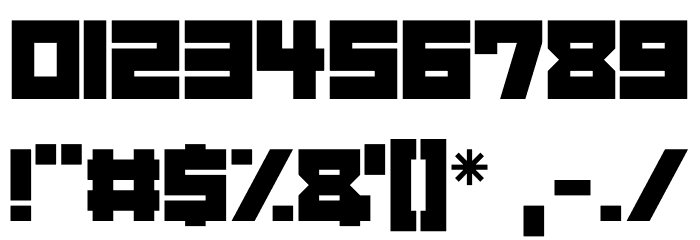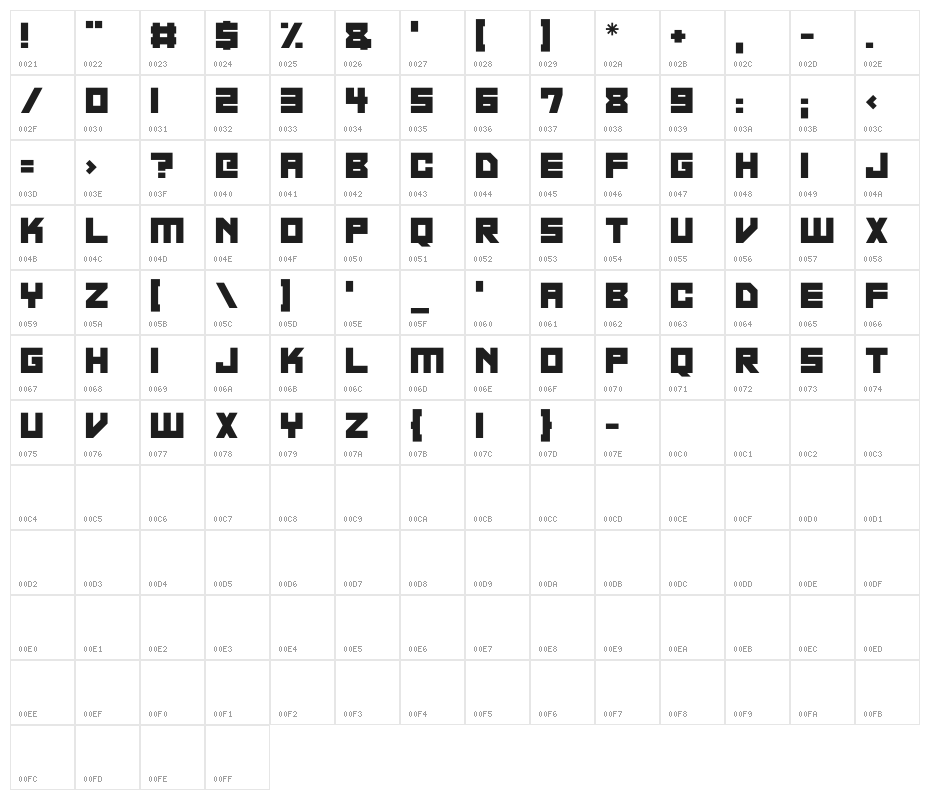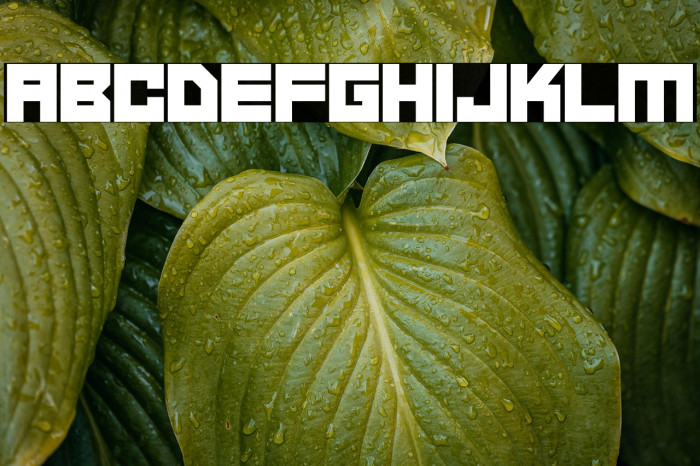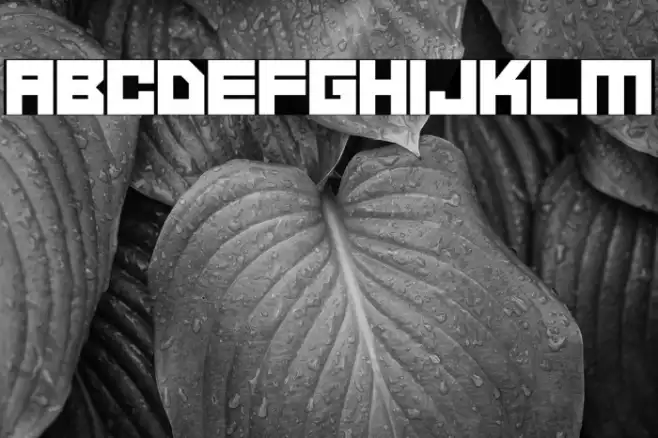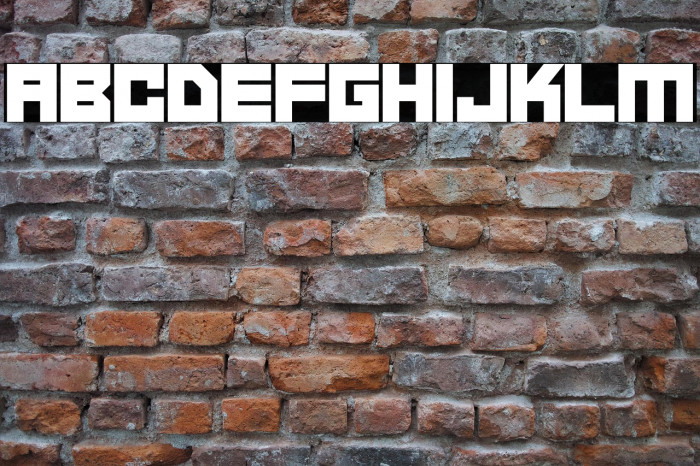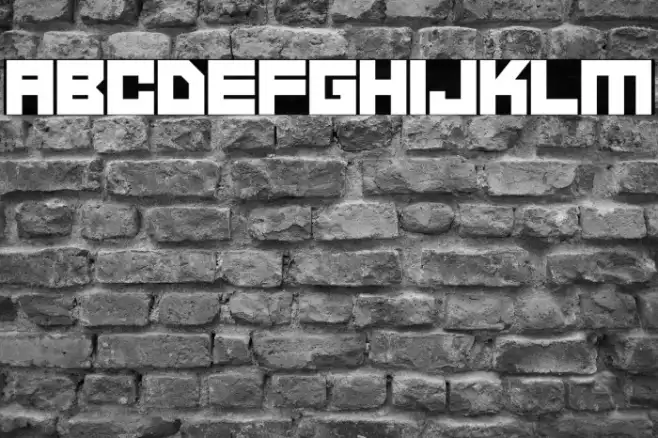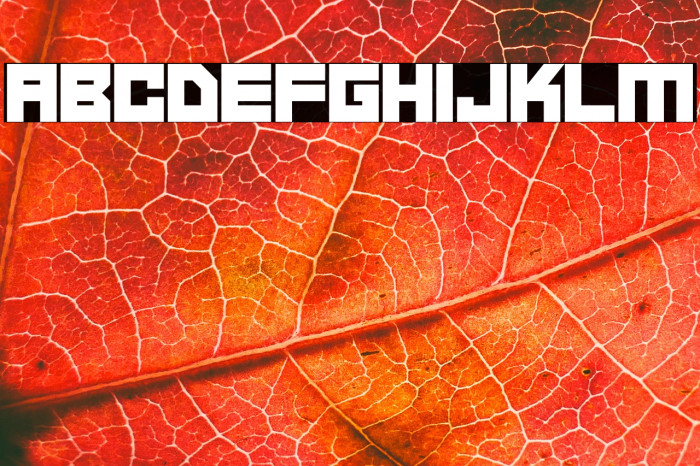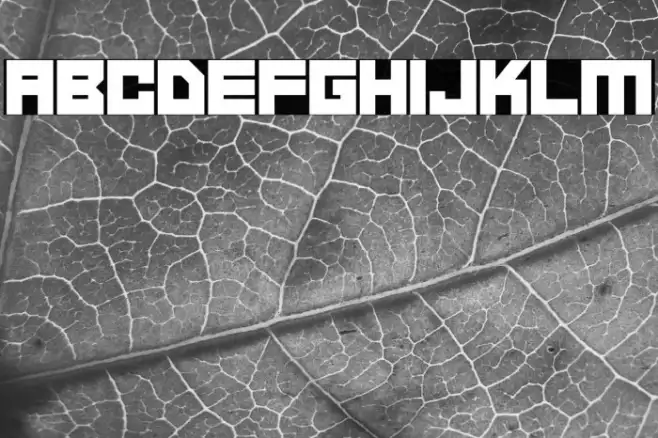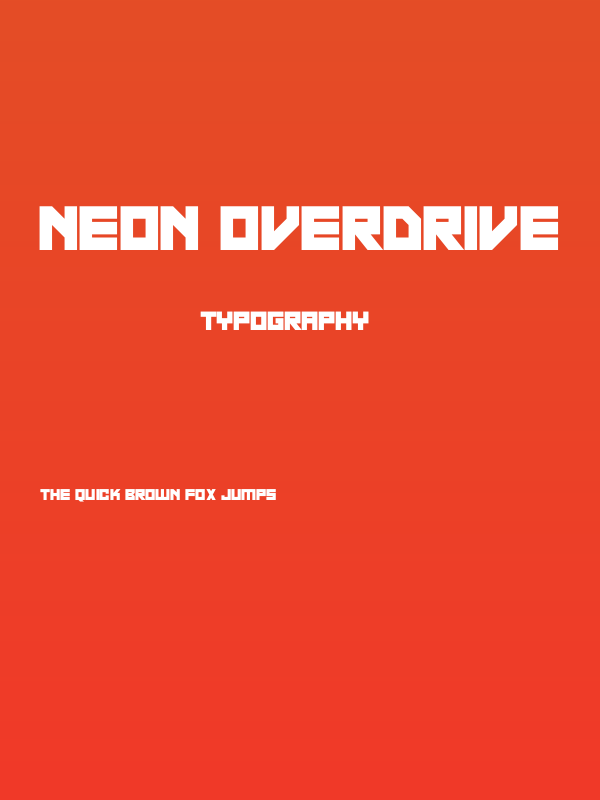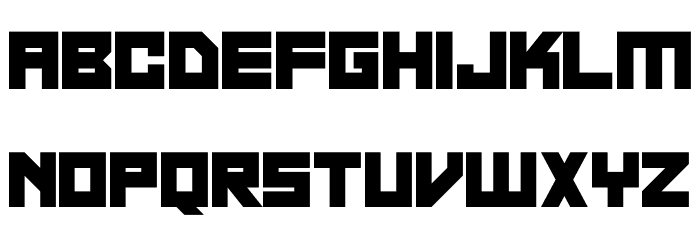
Neon Overdrive Font
Neon Overdrive Description
This font features a bold, geometric design with a futuristic aesthetic. The characters are constructed with sharp angles and straight lines, giving them a blocky and robust appearance. The uppercase letters are uniform in height, while the numbers and special characters maintain the same bold style. The font's design is reminiscent of digital or sci-fi themes, making it ideal for projects that require a modern and edgy look. Its strong presence and unique style make it suitable for attention-grabbing headlines or titles.
| Proposed Projects | Ideal for sci-fi themed posters, video game titles, tech branding, and futuristic advertisements. |